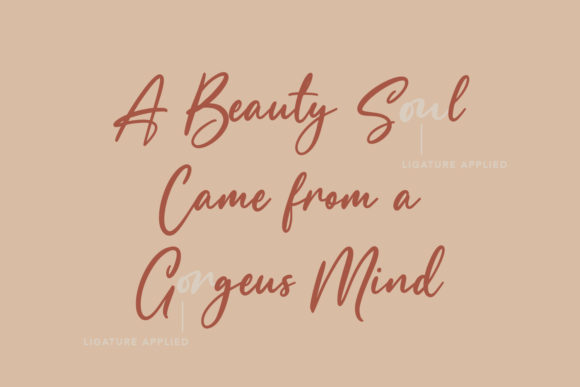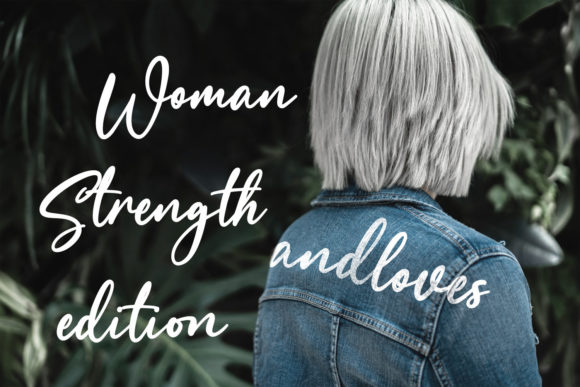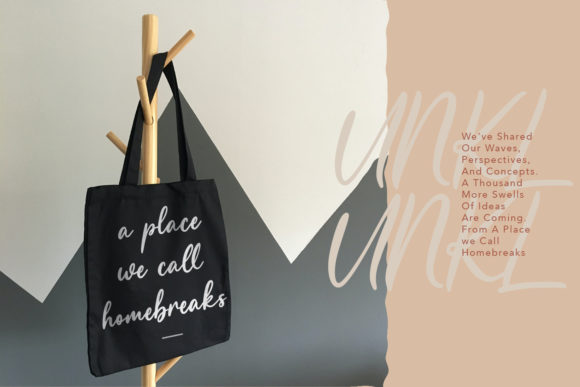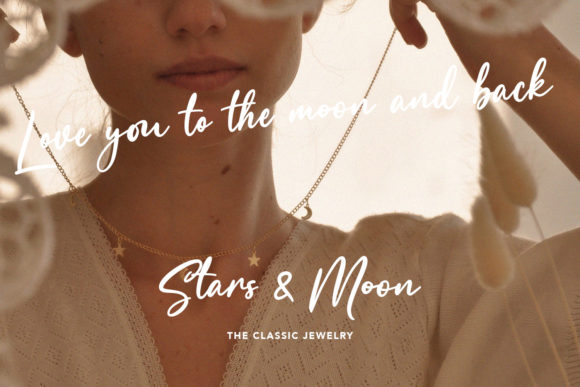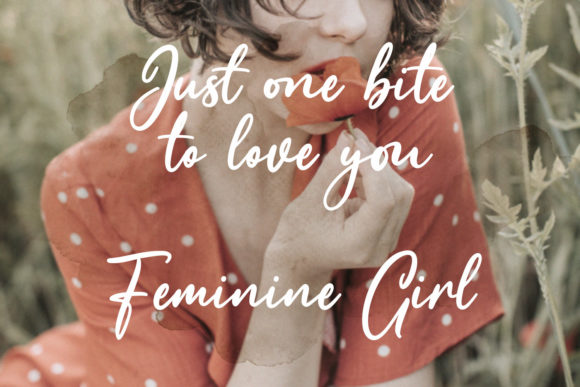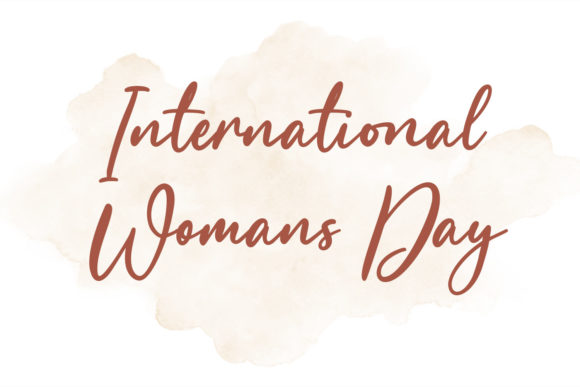
Discover the Elegance of Alulla Saffia Font: Elevate Your Designs with Sophistication
In the world of typography, a font can make or break the aesthetic appeal of a design. For those seeking a touch of elegance and class, Alulla Saffia Font emerges as a stunning solution. This lovely and delicate script font is specifically crafted for designers and crafters who aim to infuse their creations with a beautiful and refreshing look. Let’s dive into the allure of Alulla Saffia and explore how it can elevate your designs.
The Charm of Alulla Saffia
Alulla Saffia is more than just a font; it’s an expression of sophistication and refinement. Its delicate strokes and elegant curves make it perfect for projects that demand a high level of classiness. Whether you’re working on a luxury brand logo, an elegant wedding invitation, or a high-end product packaging, Alulla Saffia brings a level of distinction that’s hard to match.
Key Features of Alulla Saffia Font
- Elegant Script Style: Alulla Saffia boasts a beautiful script style that flows with grace and poise, making it ideal for designs that require a personal touch.
- Delicate and Refined: The font’s delicate nature ensures that it adds a touch of subtlety to your designs, perfect for those aiming for a sophisticated look.
- Versatile Usage: From branding and advertising to stationery and digital media, Alulla Saffia’s versatility knows no bounds.
- Easy to Read: Despite its elegant and delicate design, Alulla Saffia maintains a high level of readability, making it suitable for both headings and body text.
Who Can Benefit from Alulla Saffia?
Alulla Saffia is a valuable asset for a wide range of designers and crafters, including:
- Graphic Designers: Looking to create stunning visual identities for luxury brands or elegant marketing materials.
- Wedding Planners and Stylists: Seeking beautiful and unique typography for wedding invitations, cards, and decor.
- Stationery Designers: Aiming to craft exquisite and personalized stationery sets.
- Digital Artists and Illustrators: Needing elegant text solutions for their digital artworks and illustrations.
Tips for Using Alulla Saffia Effectively
To maximize the impact of Alulla Saffia in your designs, consider the following tips:
- Pair with Simplicity: Let Alulla Saffia be the centerpiece by pairing it with simple, clean fonts for contrast.
- Experiment with Colors: While Alulla Saffia looks stunning in classic colors like black and gold, don’t be afraid to experiment with soft pastels or rich jewel tones.
- Play with Sizes: Utilize different sizes to create visual hierarchy and emphasize key messages.
- Emphasize Details: Take advantage of the font’s delicate features by ensuring high resolution and crisp printing or display.
Alulla Saffia Font is a beautiful addition to the world of typography, offering designers and crafters a tool to elevate their creations with elegance and class. Its delicate yet impactful design makes it suitable for a variety of projects, from luxury branding to personal stationery. By incorporating Alulla Saffia into your design arsenal, you’re equipped to create stunning, sophisticated works that leave a lasting impression.